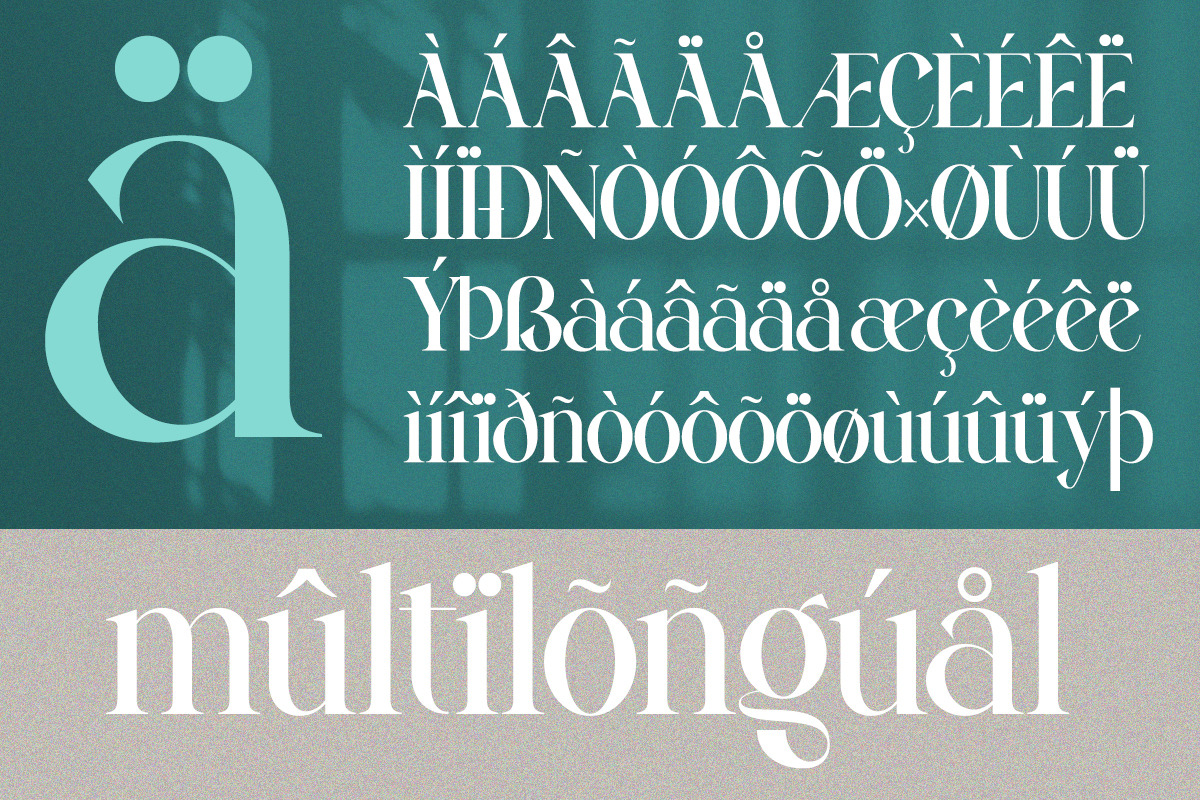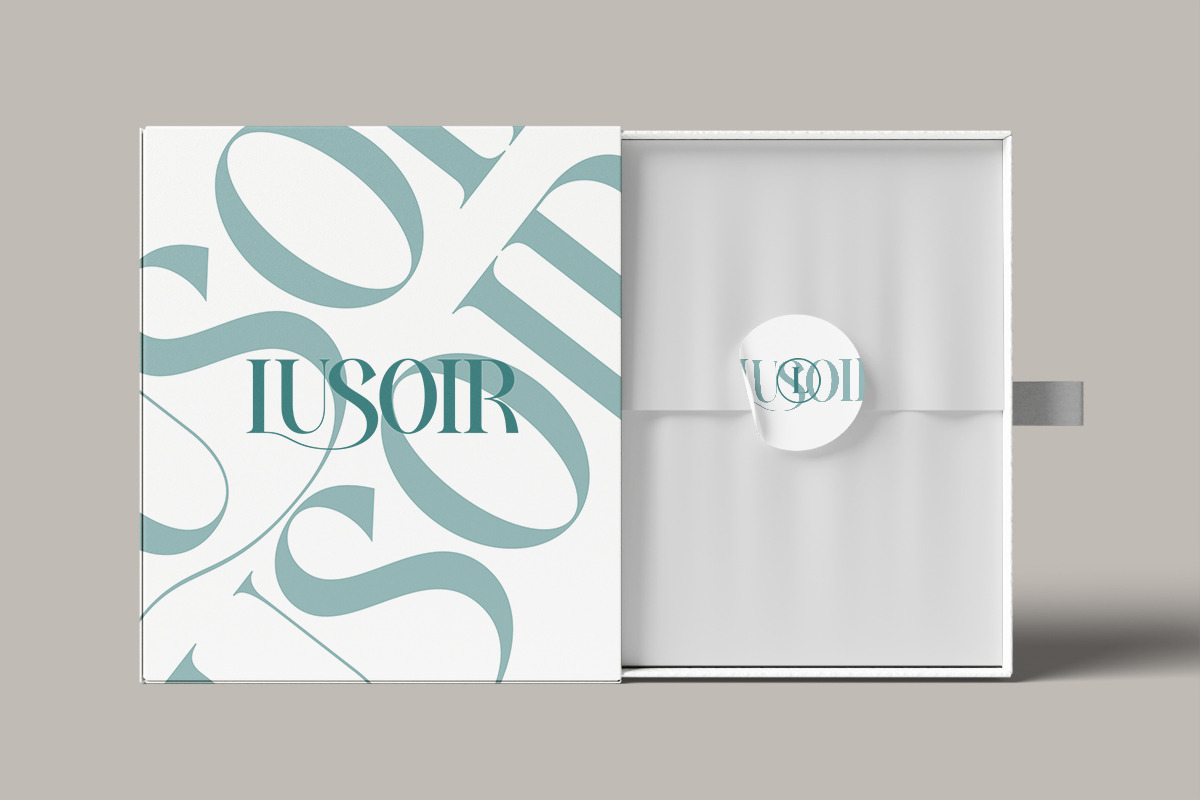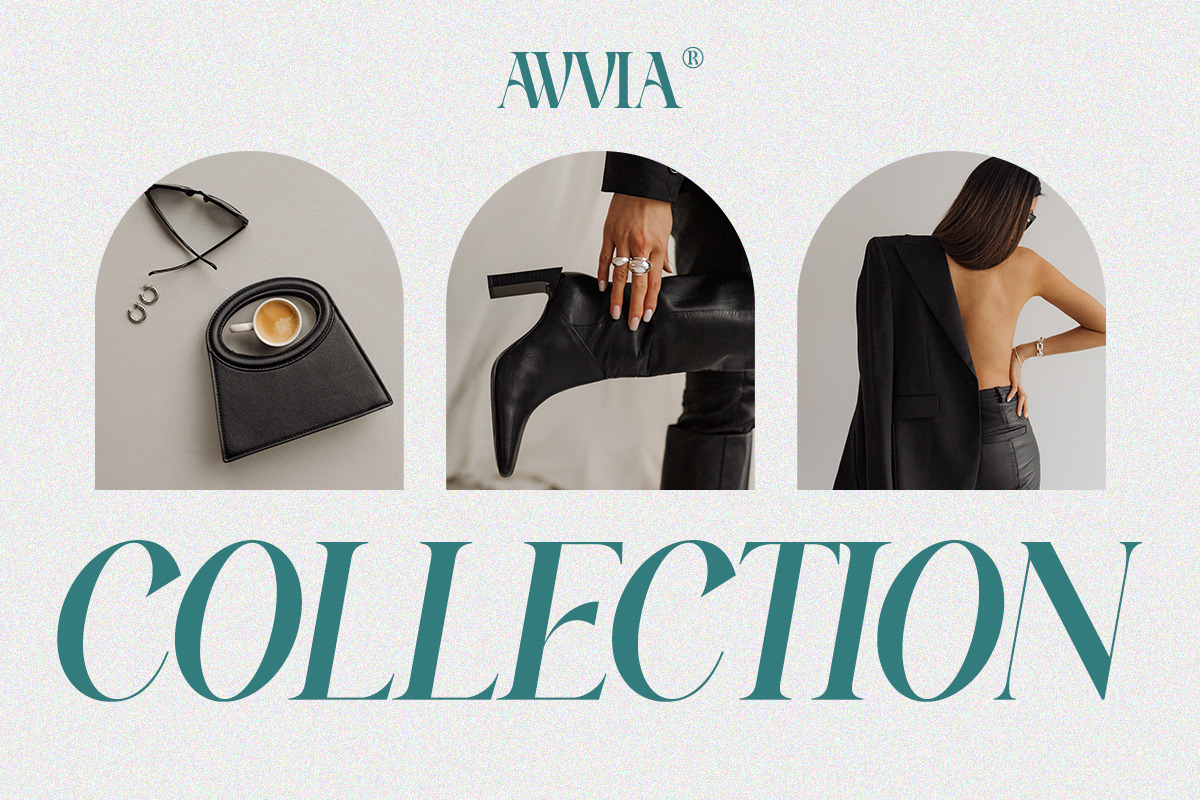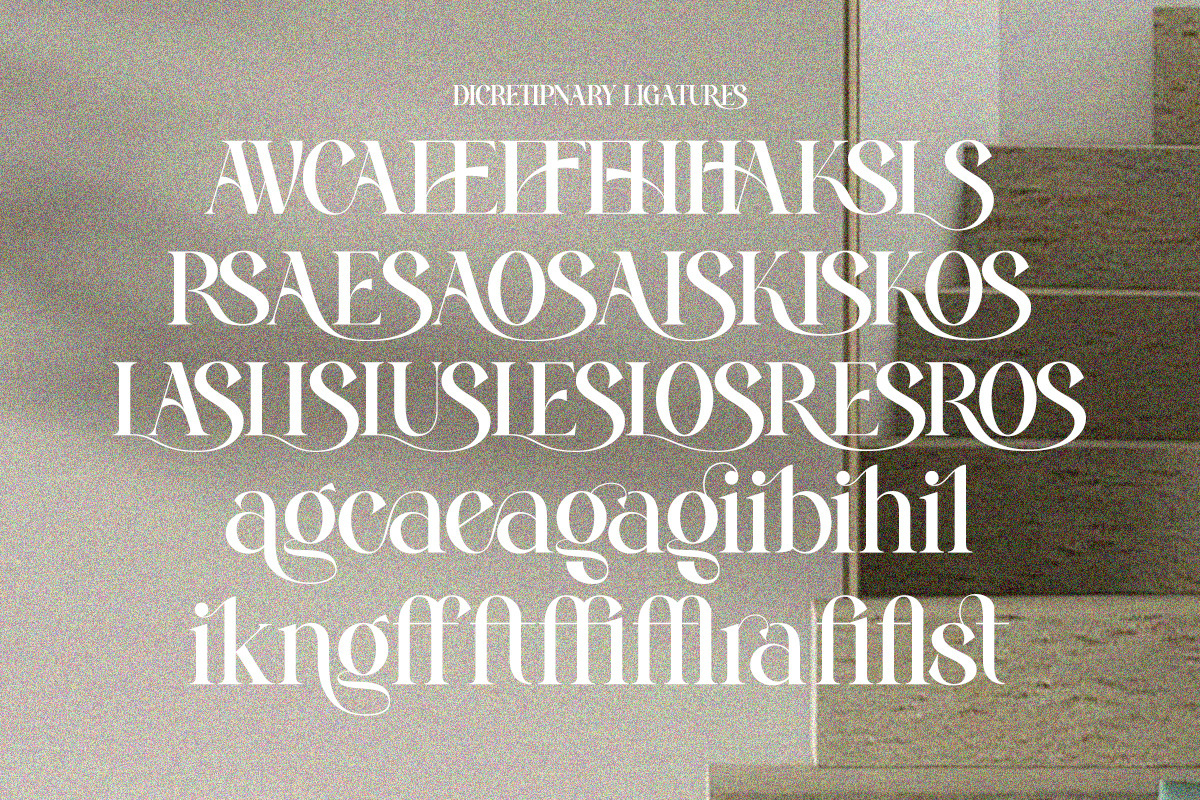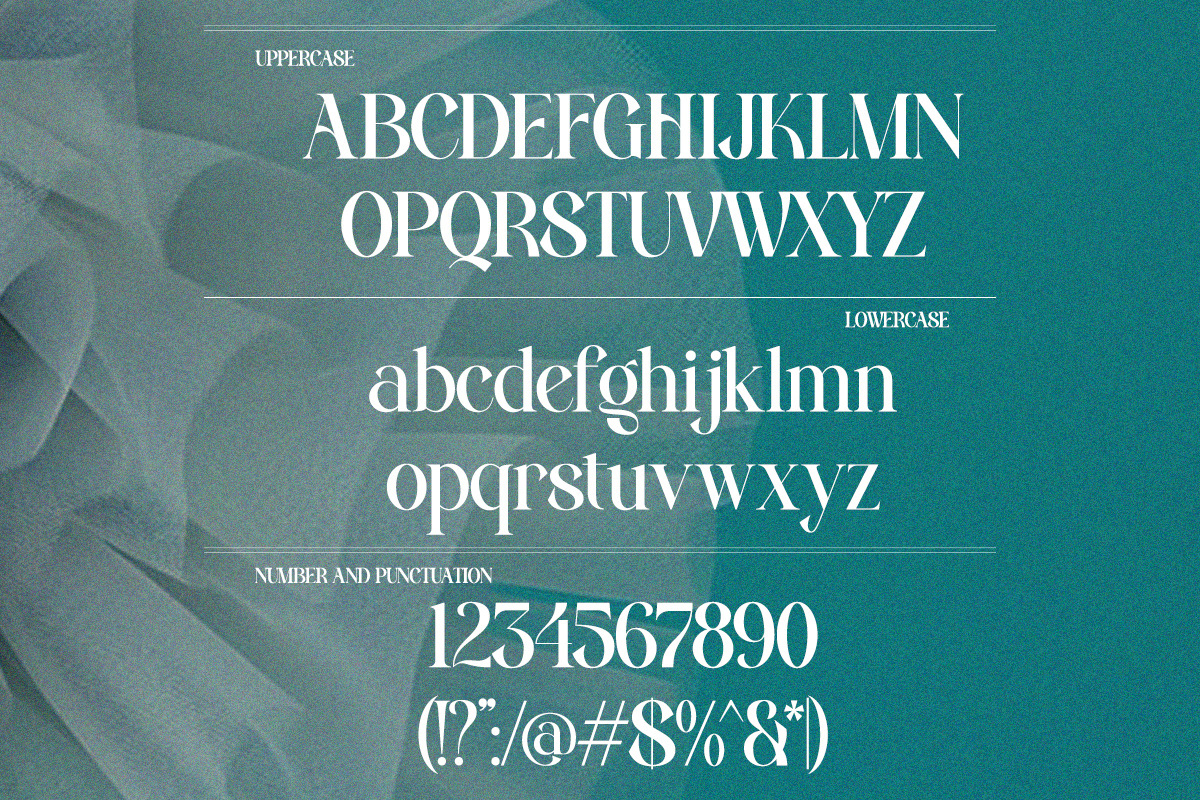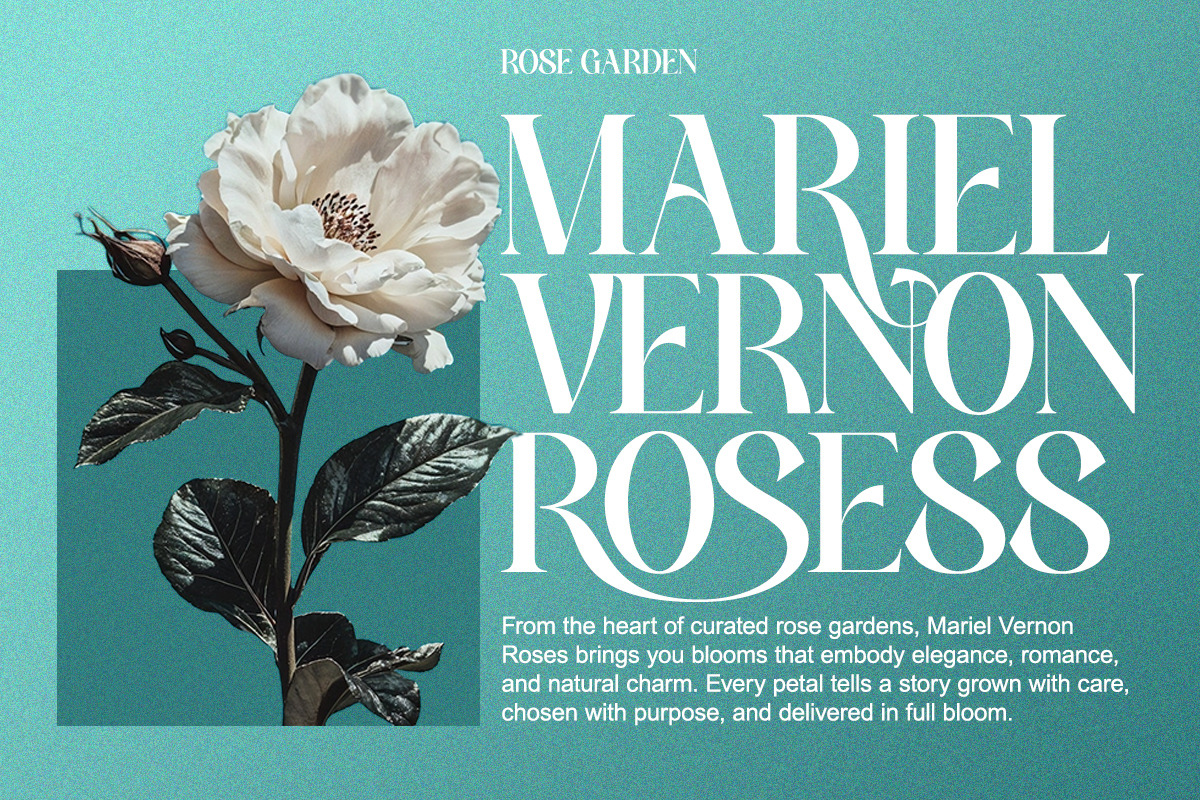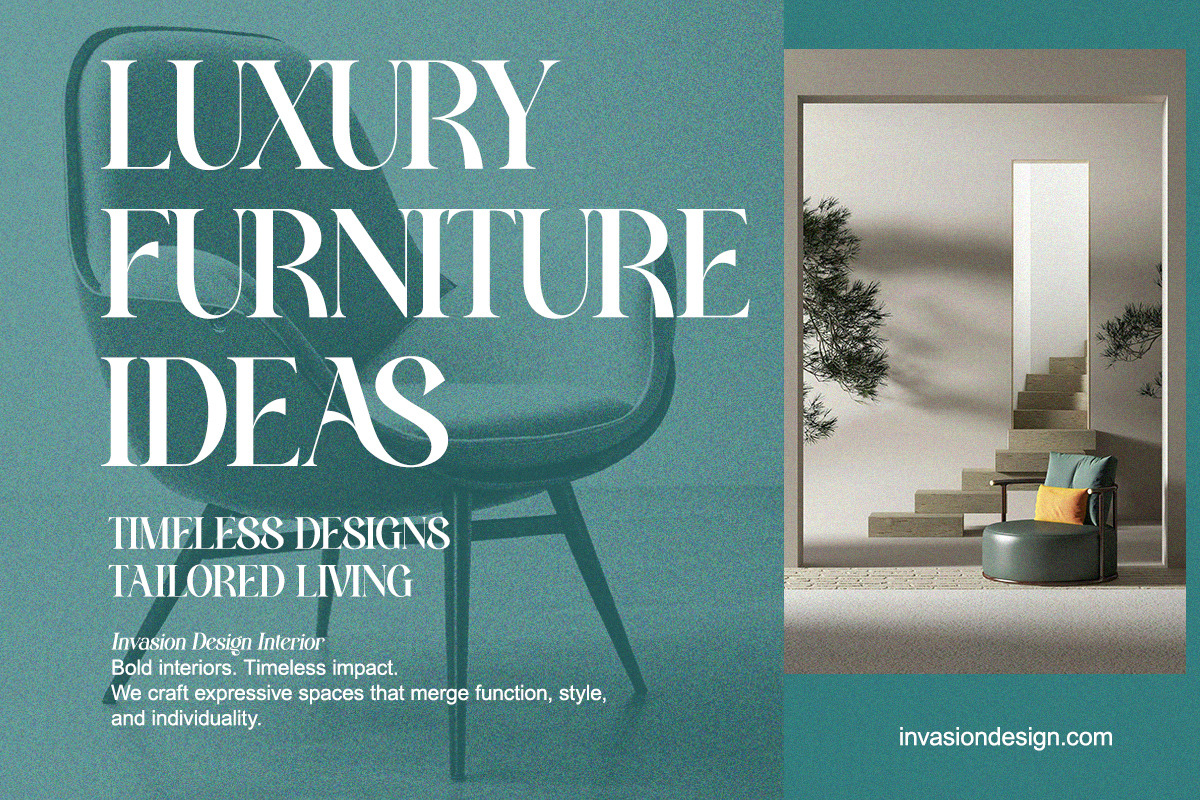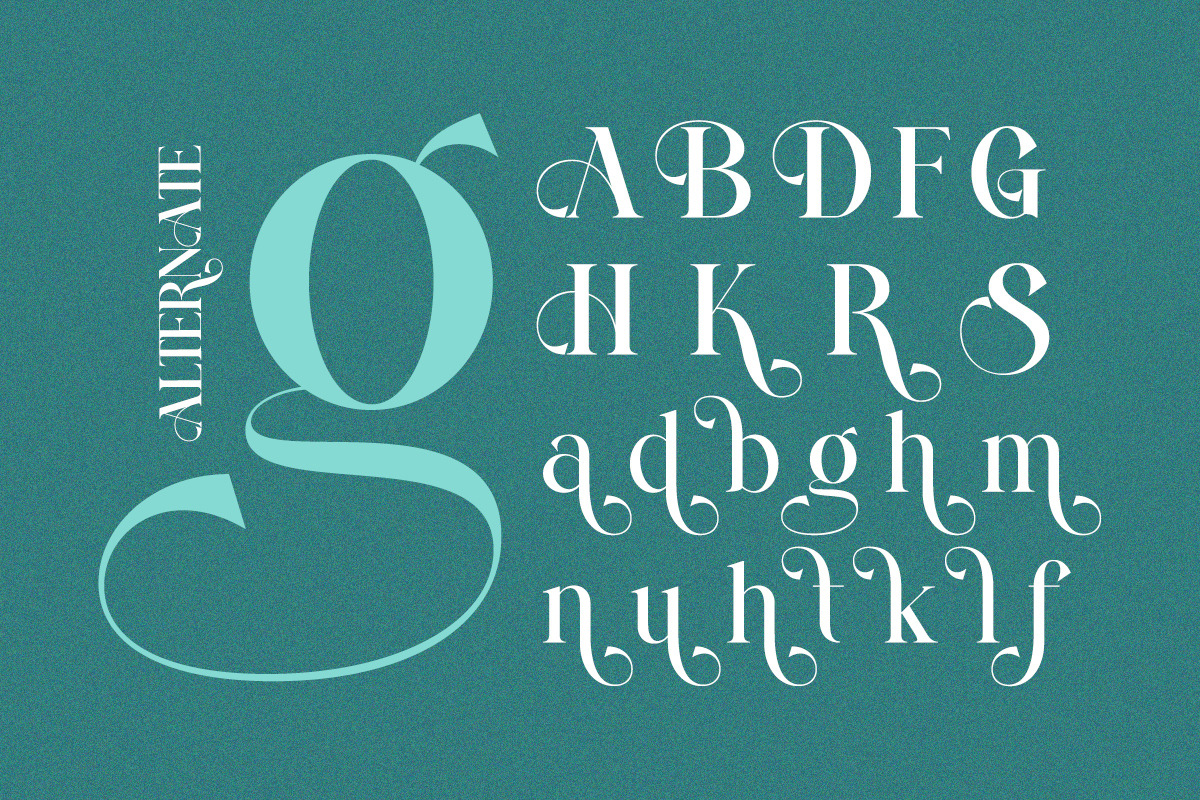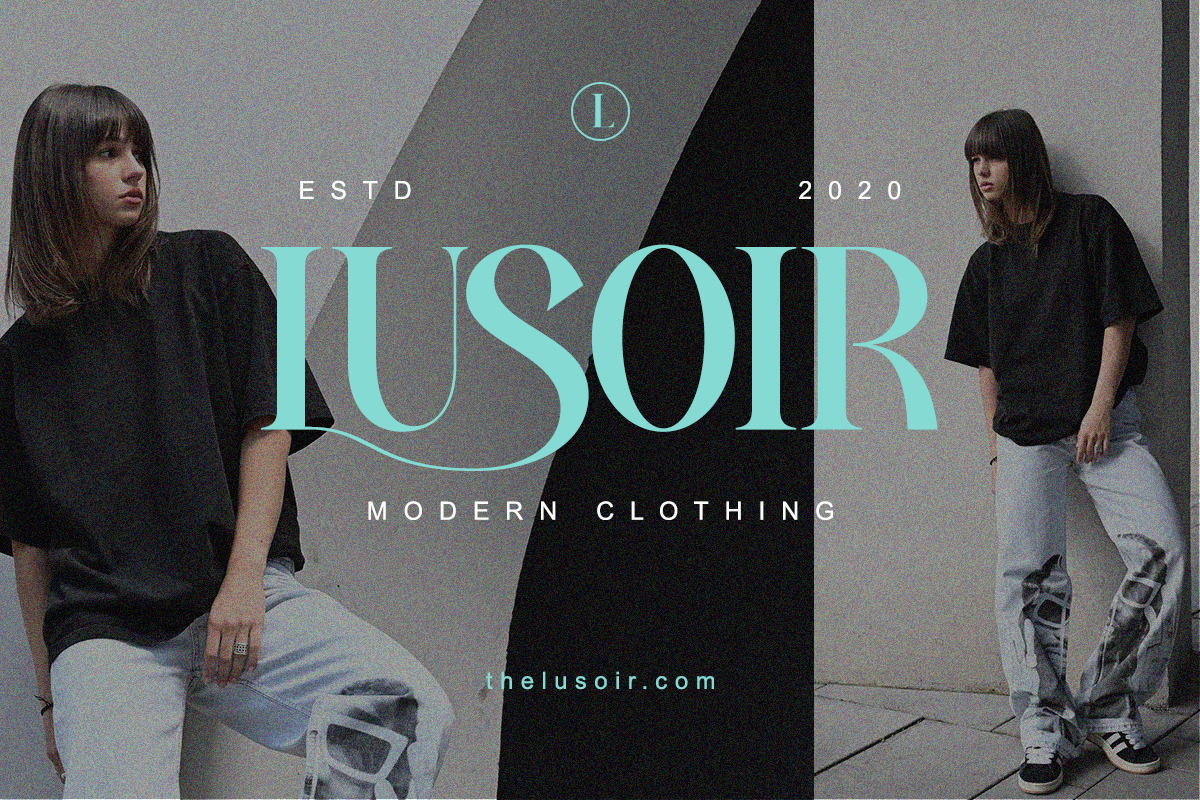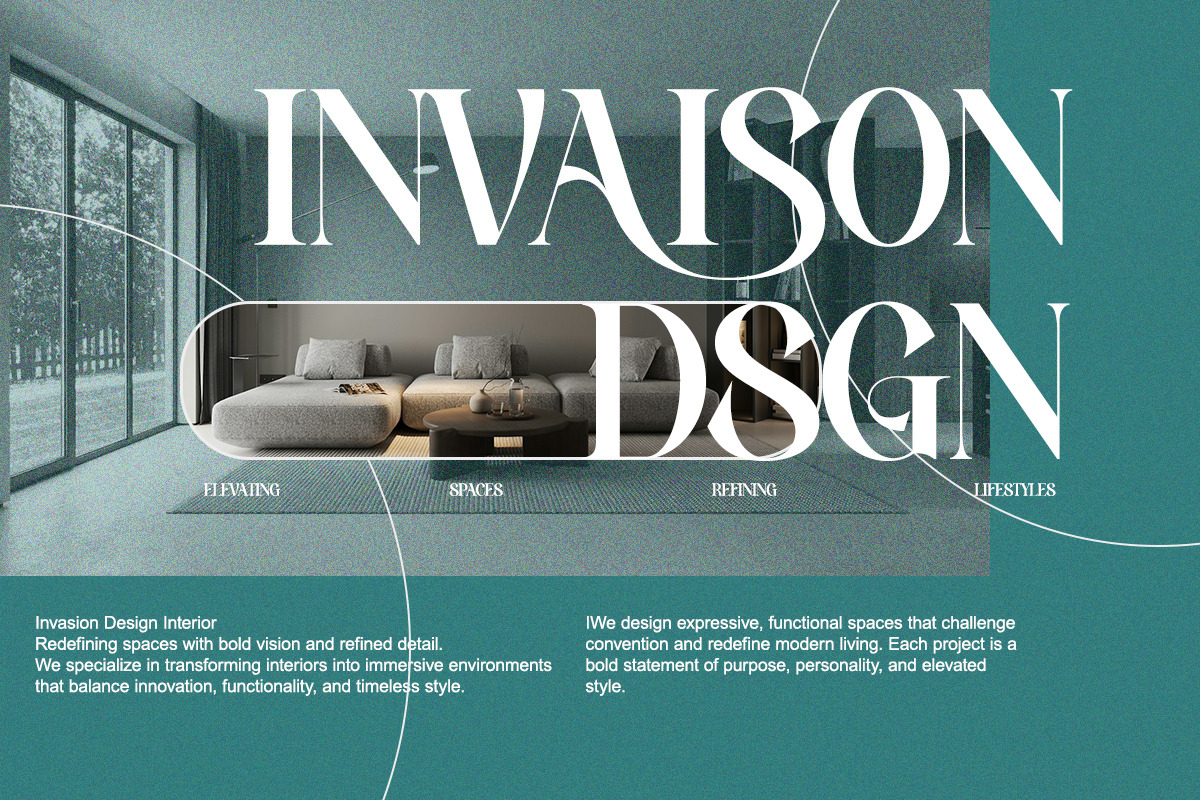
Grandi Ligatura - Modern Luxury
Grandi Ligatura is a stylish serif font designed to elevate your visual identity with luxurious curves and elegant ligatures.
This typeface blends classic editorial style with modern twist through intricate stylistic alternates and graceful ligature combinations. It radiates confidence and sophistication, making it a flawless choice for premium branding, high-fashion campaigns, beauty packaging, and bold editorial titles.
Graceful yet powerful, Grandi Ligatura is the epitome of high-end type design with a contemporary soul.
- Regular & Italic
- Elegant ligatures & alternates
- Smooth curves & balanced proportions
- Multilingual characters
- High-end fashion branding
- Jewelry & perfume packaging
- Editorial headlines & lookbooks
- Wedding monograms & invitations
- Logo design for luxury brands
- Modern minimalist design with a twist
Grandi Ligatura isn’t just a font. It’s a design weapon for elegance and impact.